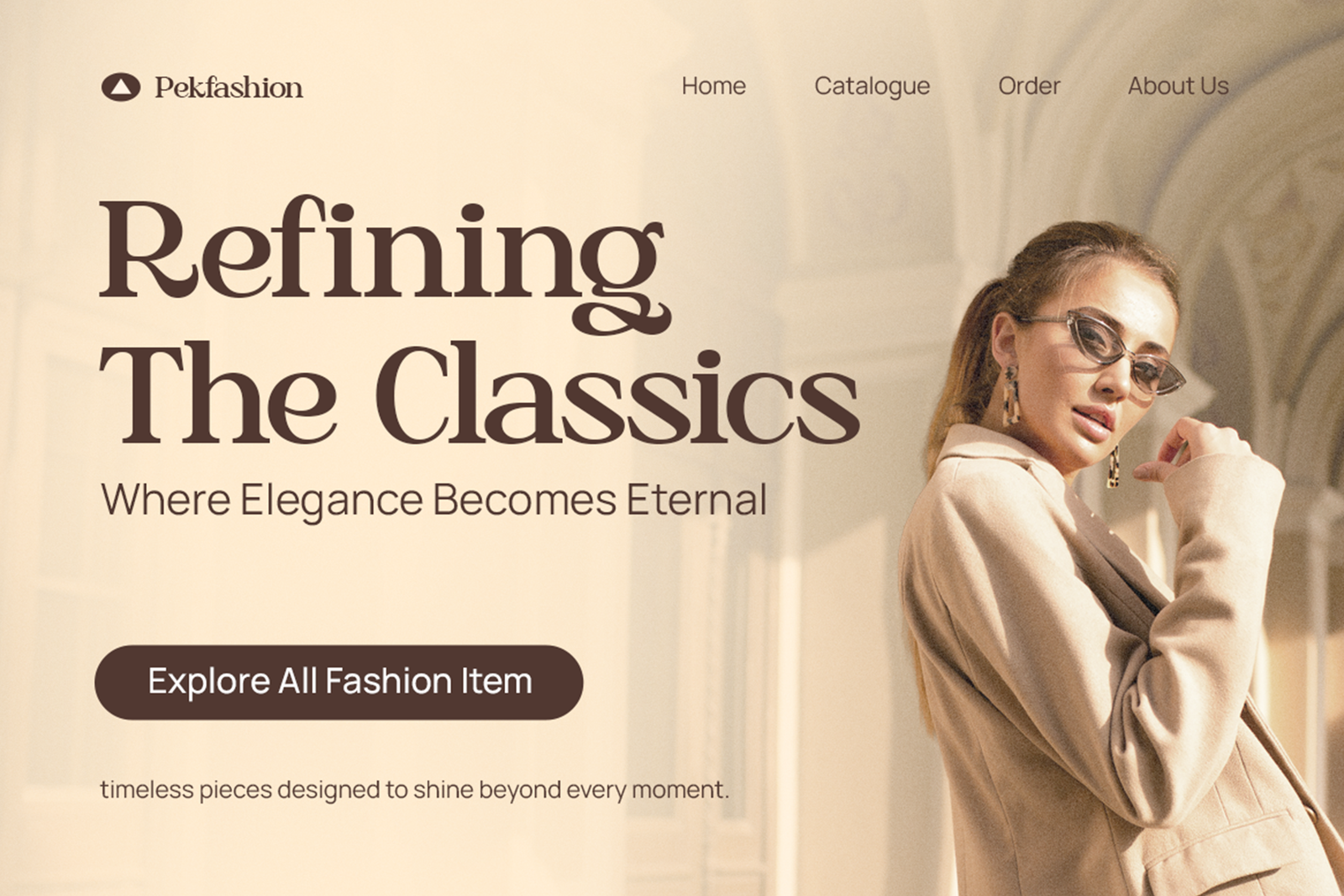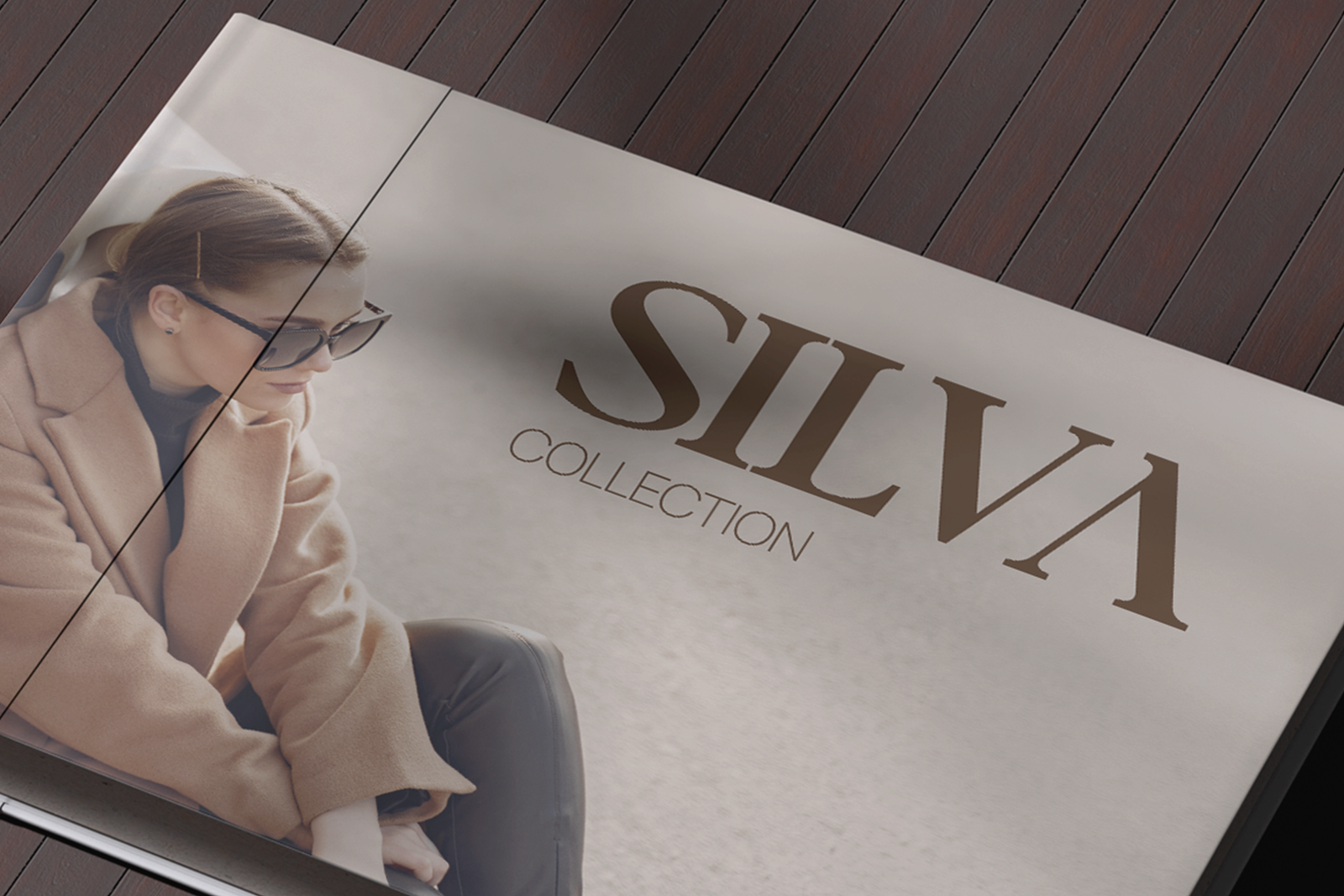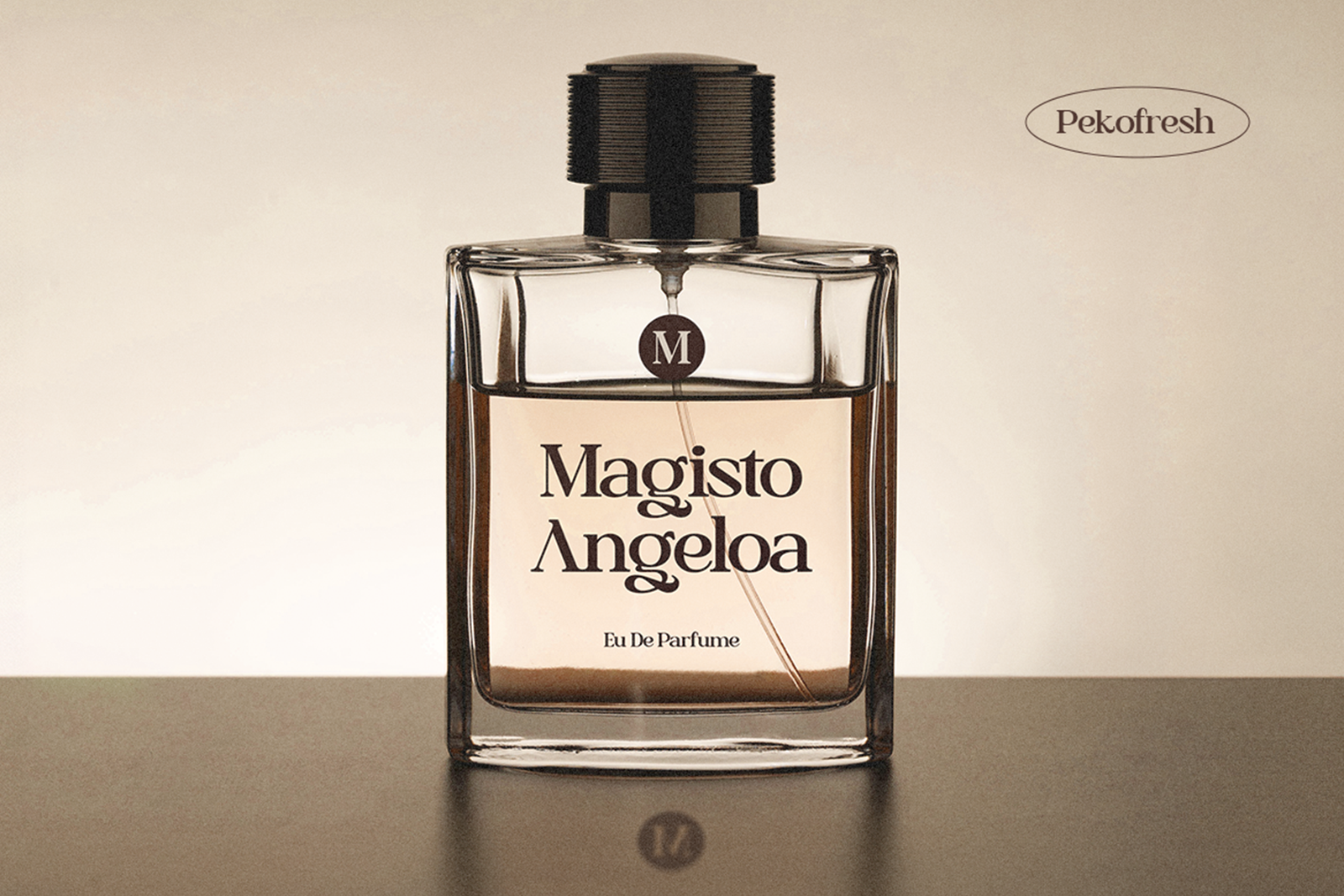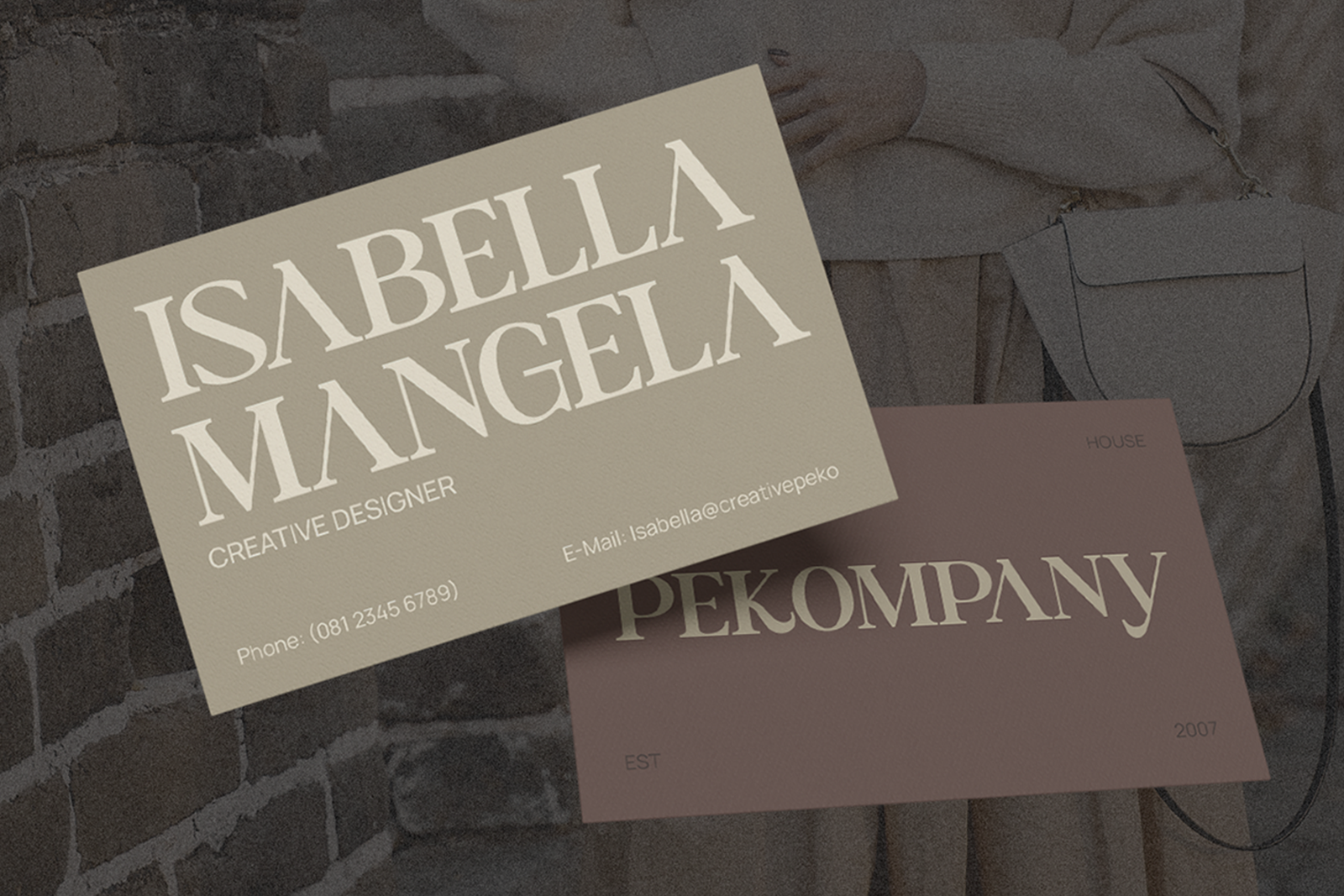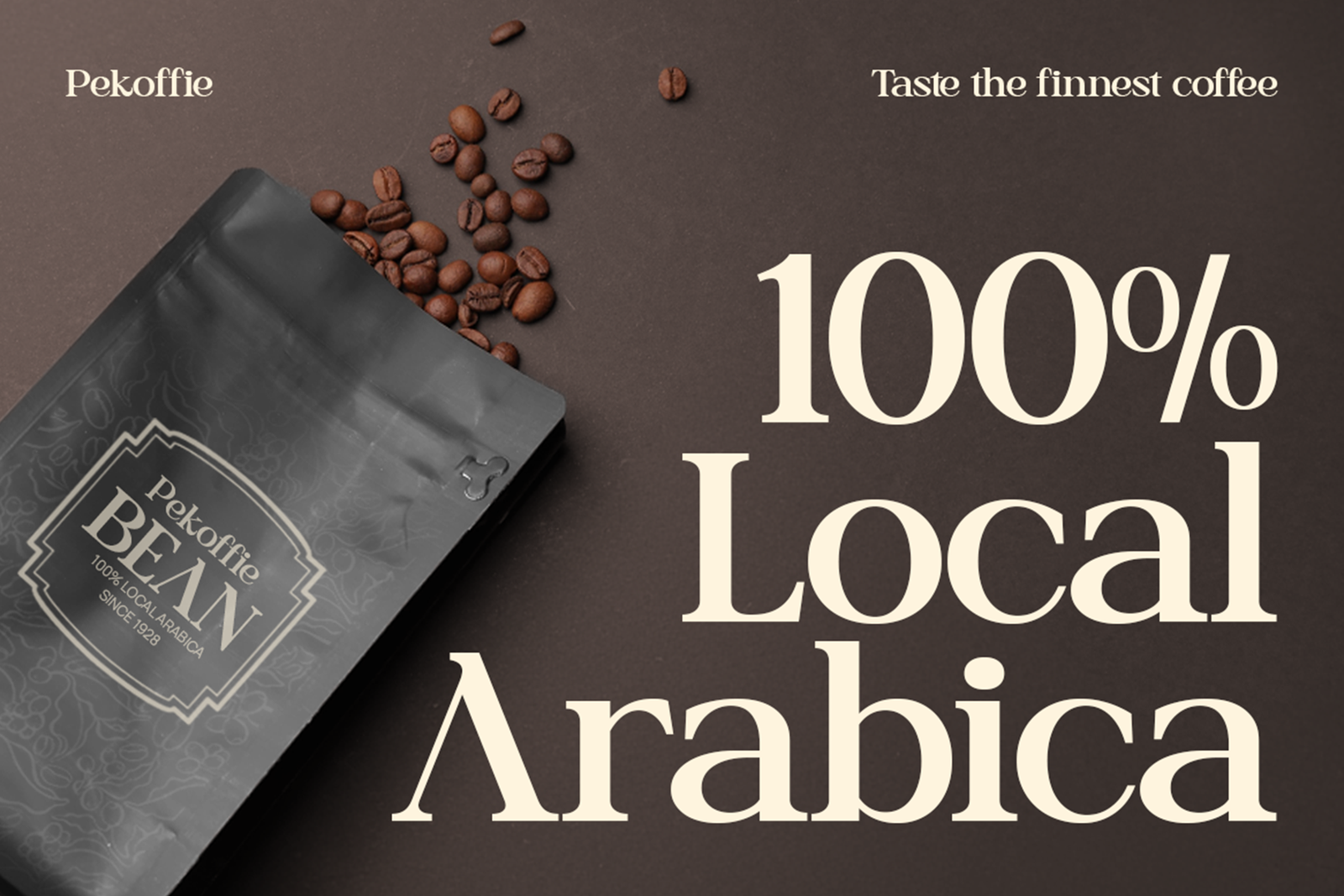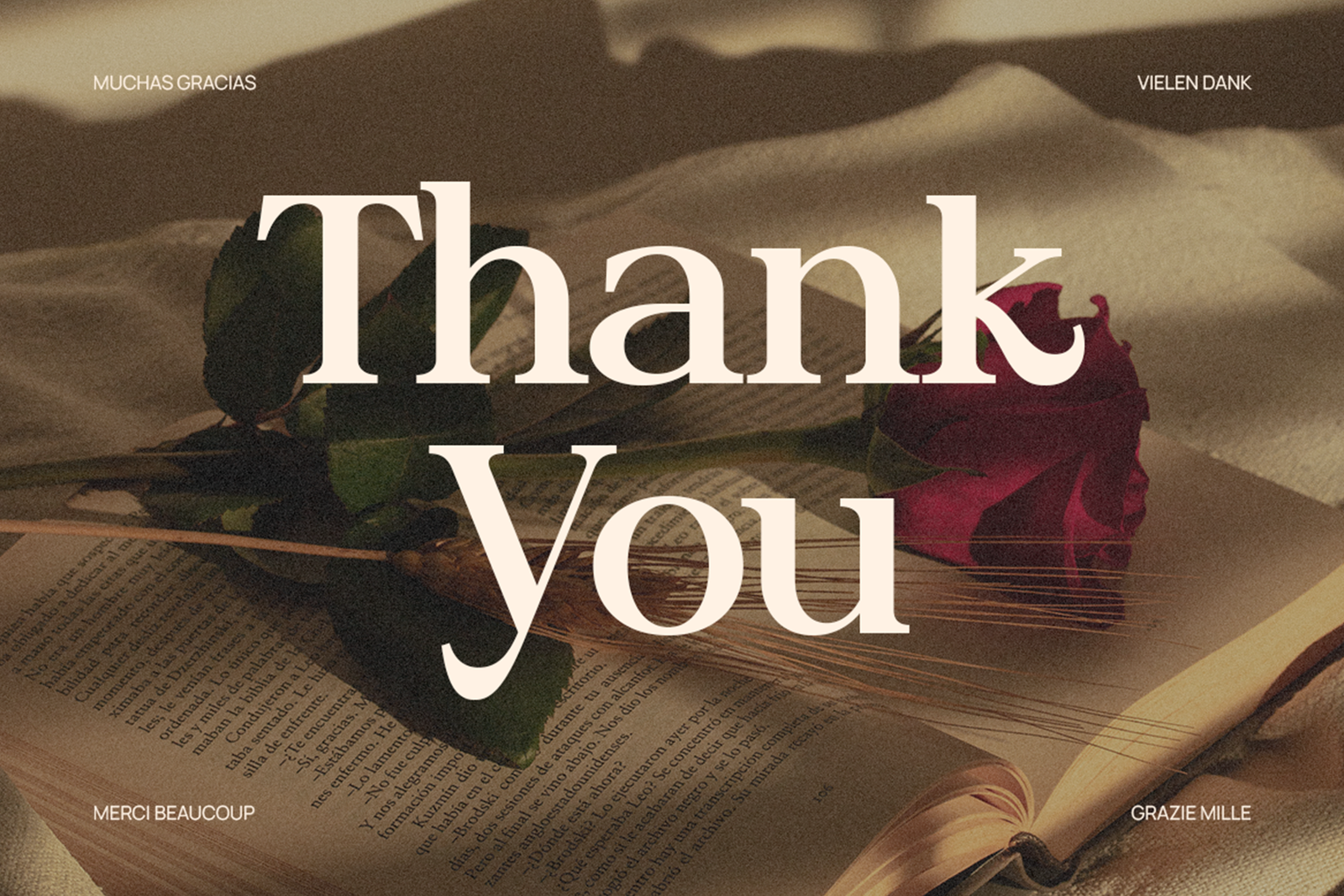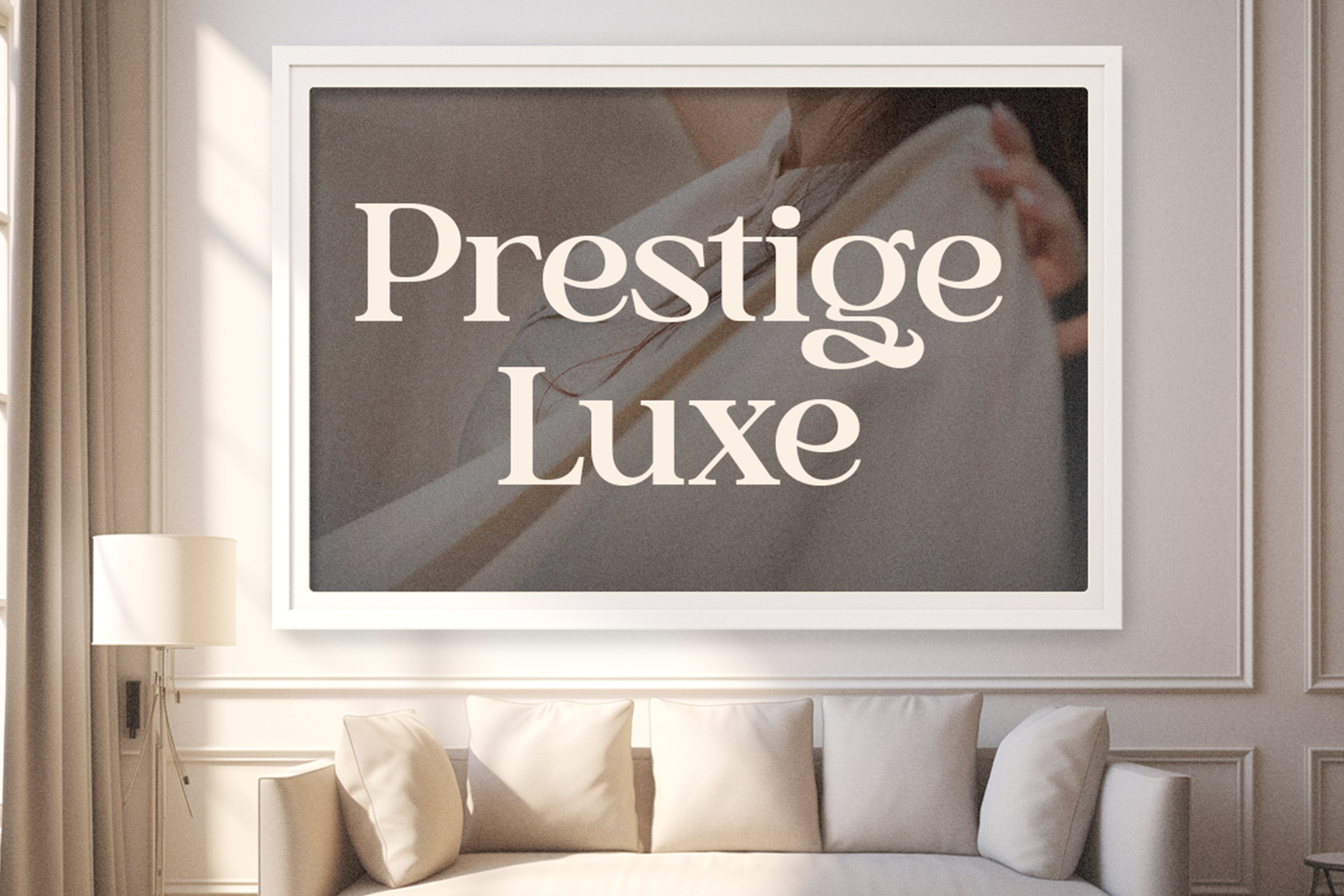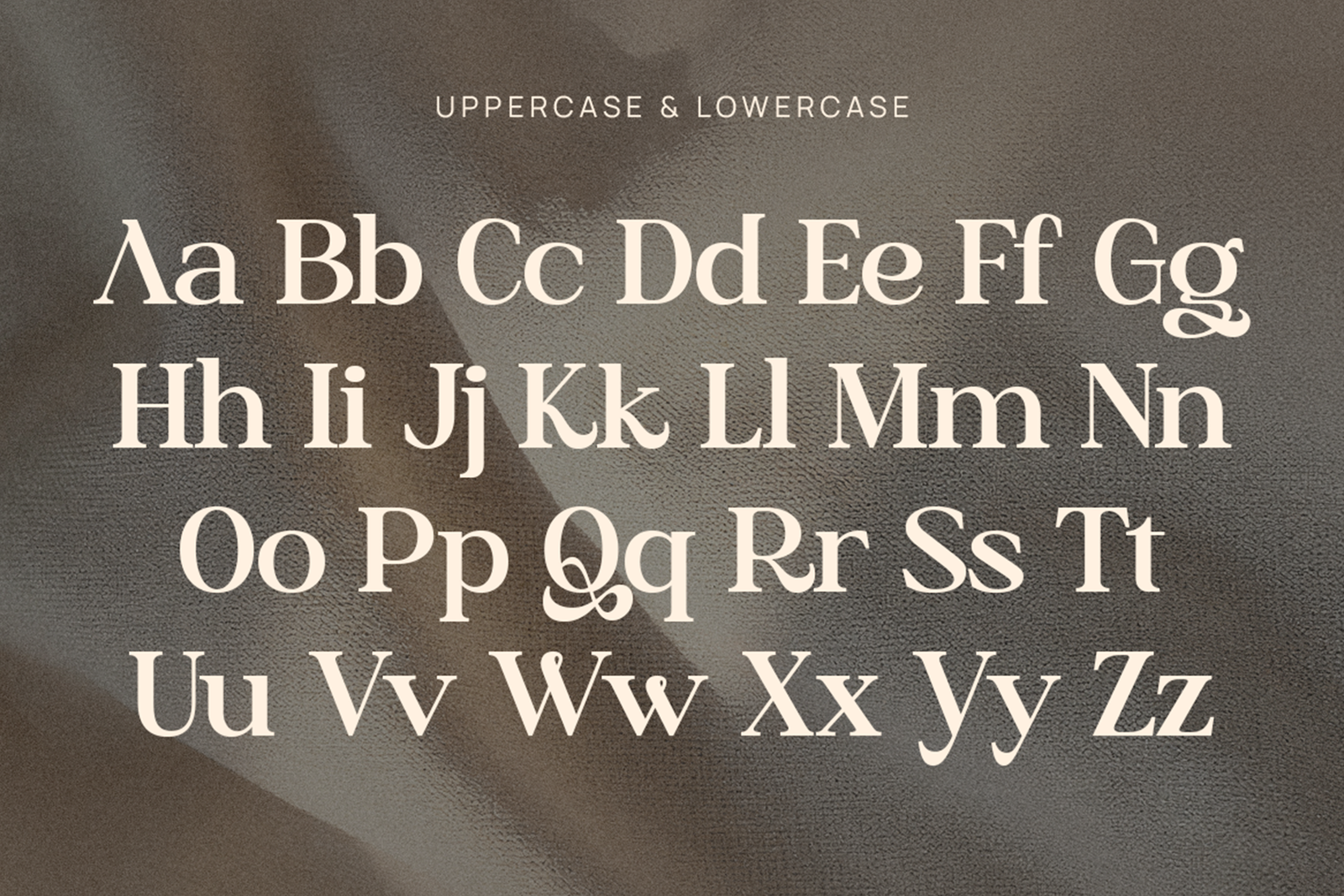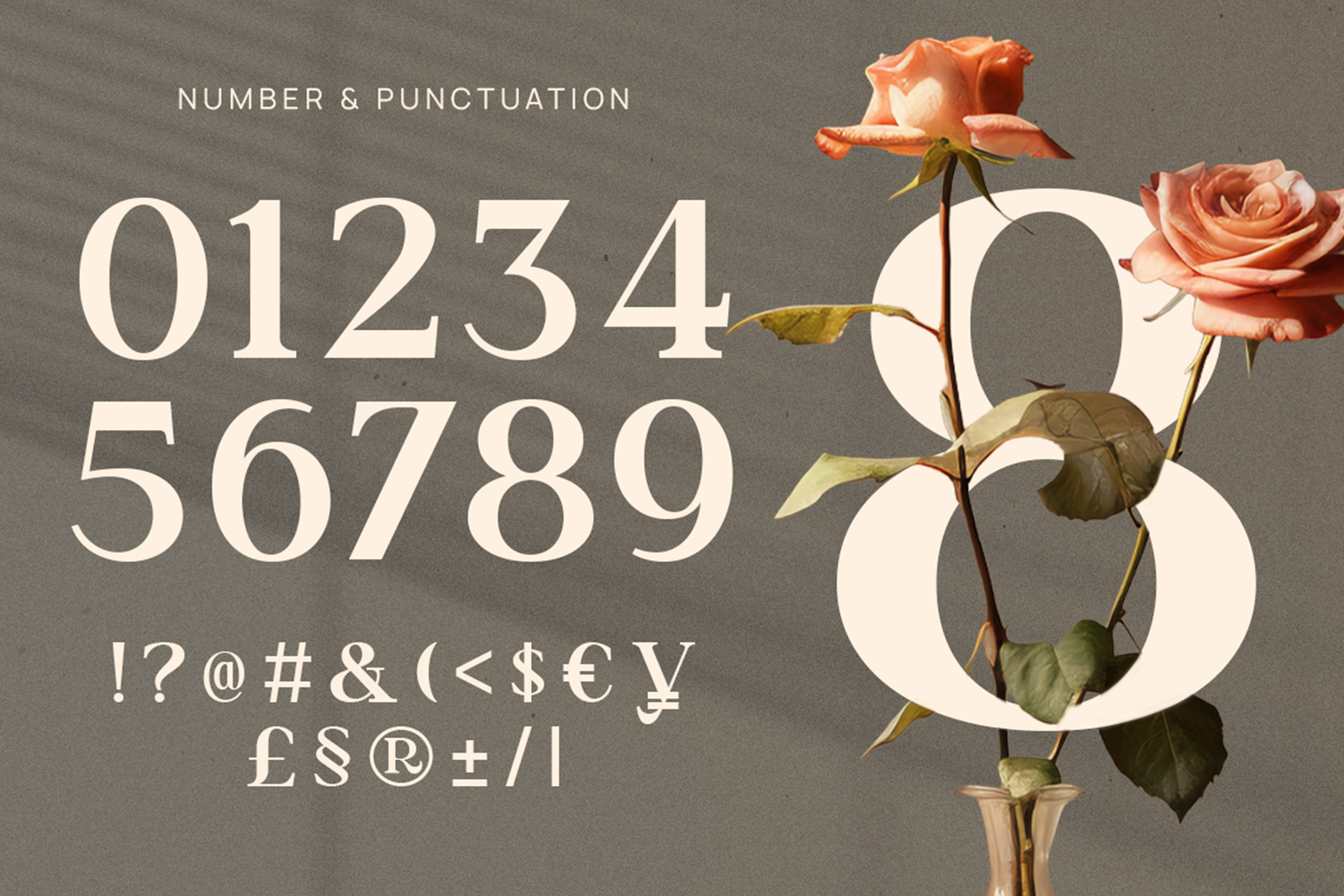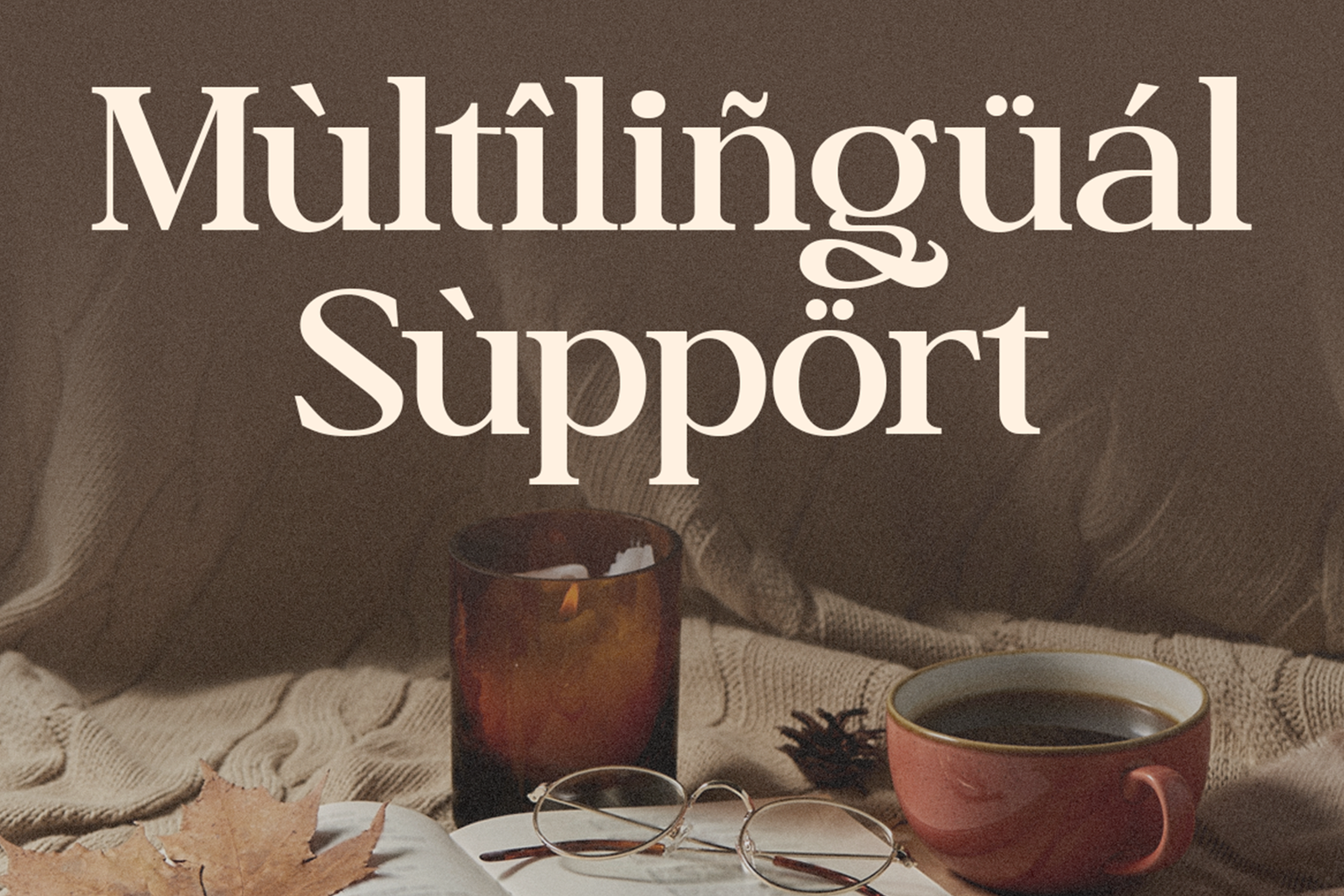
CARSEN Font is an elegant luxury serif display typeface with smooth curves and refined details. Perfect for branding, fashion, beauty products, invitations, packaging, editorial layouts, and premium creative projects.
CARSEN Font is an elegant luxury display serif typeface created to bring a refined and timeless feeling to your design projects. Featuring smooth curves, stylish contrast, and sophisticated letterforms, this font creates a premium visual identity while maintaining a clean and modern appearance.
Designed for brands that need a classy and memorable style, CARSEN works beautifully for luxury branding, logo design, fashion editorials, wedding invitations, beauty products, café menus, perfume packaging, magazines, and social media graphics. Its elegant character helps create designs that feel warm, professional, and visually appealing.
The graceful serif details make this typeface perfect for headlines, brand names, product titles, and editorial compositions. Whether you are creating a high-end fashion identity, boutique branding, or aesthetic promotional content, CARSEN adds a sophisticated touch to every layout.
This versatile font includes uppercase and lowercase letters, numbers, symbols, punctuation, and multilingual support. It is suitable for both print and digital projects, allowing designers to create consistent branding across various platforms.
CARSEN Font is the perfect choice for designers looking for a graceful, premium, and timeless serif typeface for modern creative projects.